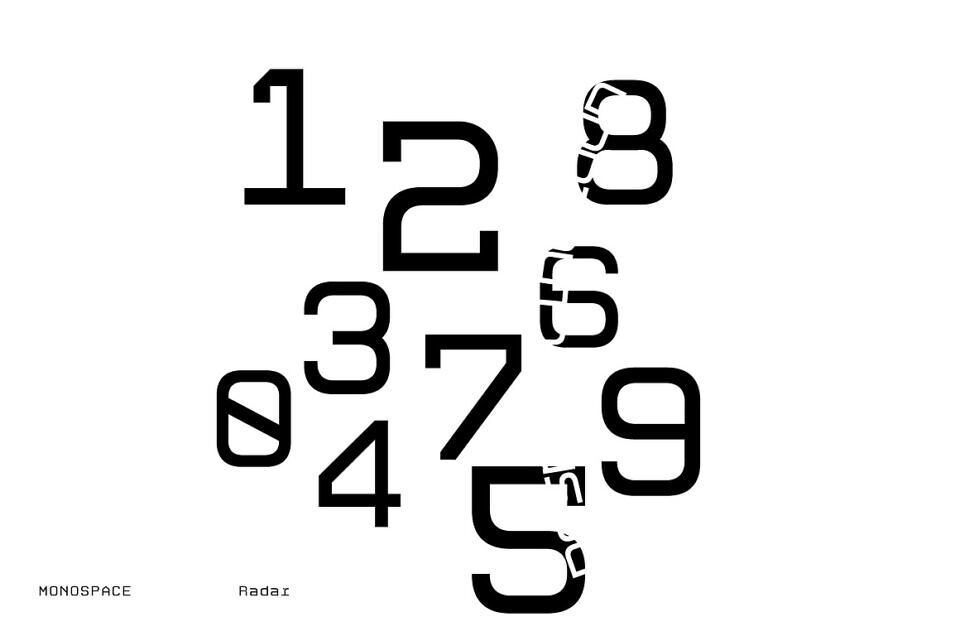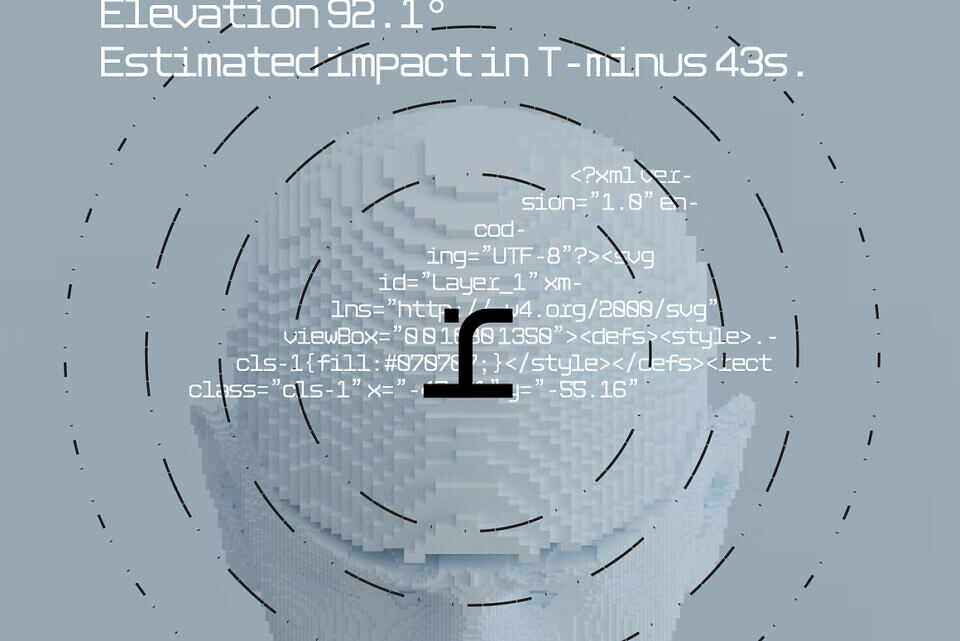
Radar Font
Radar is a monospaced display typeface that blends precision with futuristic style. Designed with geometric consistency and mechanical clarity, each character aligns to a fixed width, giving the font a clean, modular rhythm perfect for digital and technical applications.